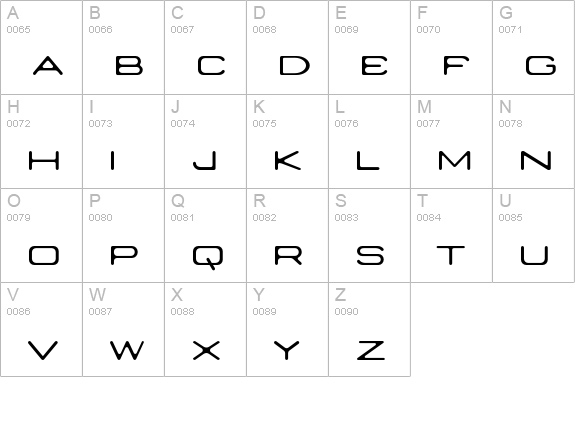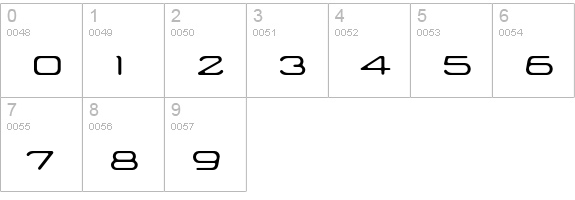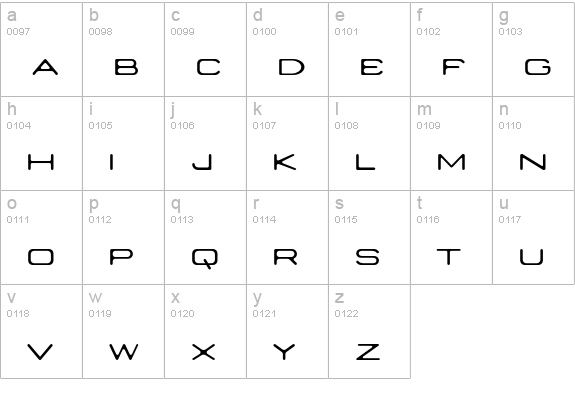
Nedian-Light is a refined, elegant variant in the Nedian typeface family \xE2\x80\x94 well suited to elegant body text, refined sub-headings, and luxury branding.
Nedian-Light font is a sleek and modern typeface that exudes sophistication and elegance. With its clean lines and subtle curves, this font is perfect for adding a touch of refinement to any project. The Nedian-Light font is versatile and can be used for a wide range of design purposes, from branding to editorial work. What sets Nedian-Light font apart is not just its aesthetic appeal, but also the fact that it is available for free download at FontsMarket.com. This means that you can easily access this high-quality font without any cost, making it a valuable addition to your font library. Whether you're looking to elevate your designs with a touch of elegance or simply want to experiment with a new typeface, Nedian-Light font is a fantastic choice. Download it for free today and see how it can enhance your creative projects!